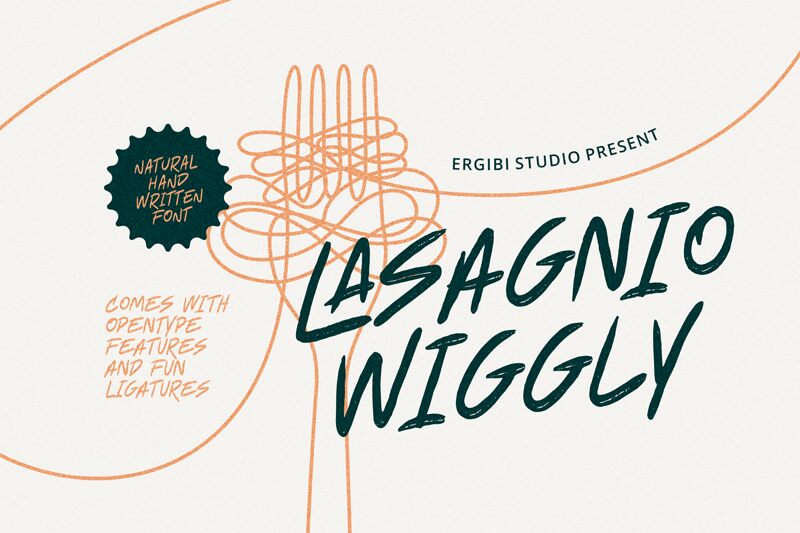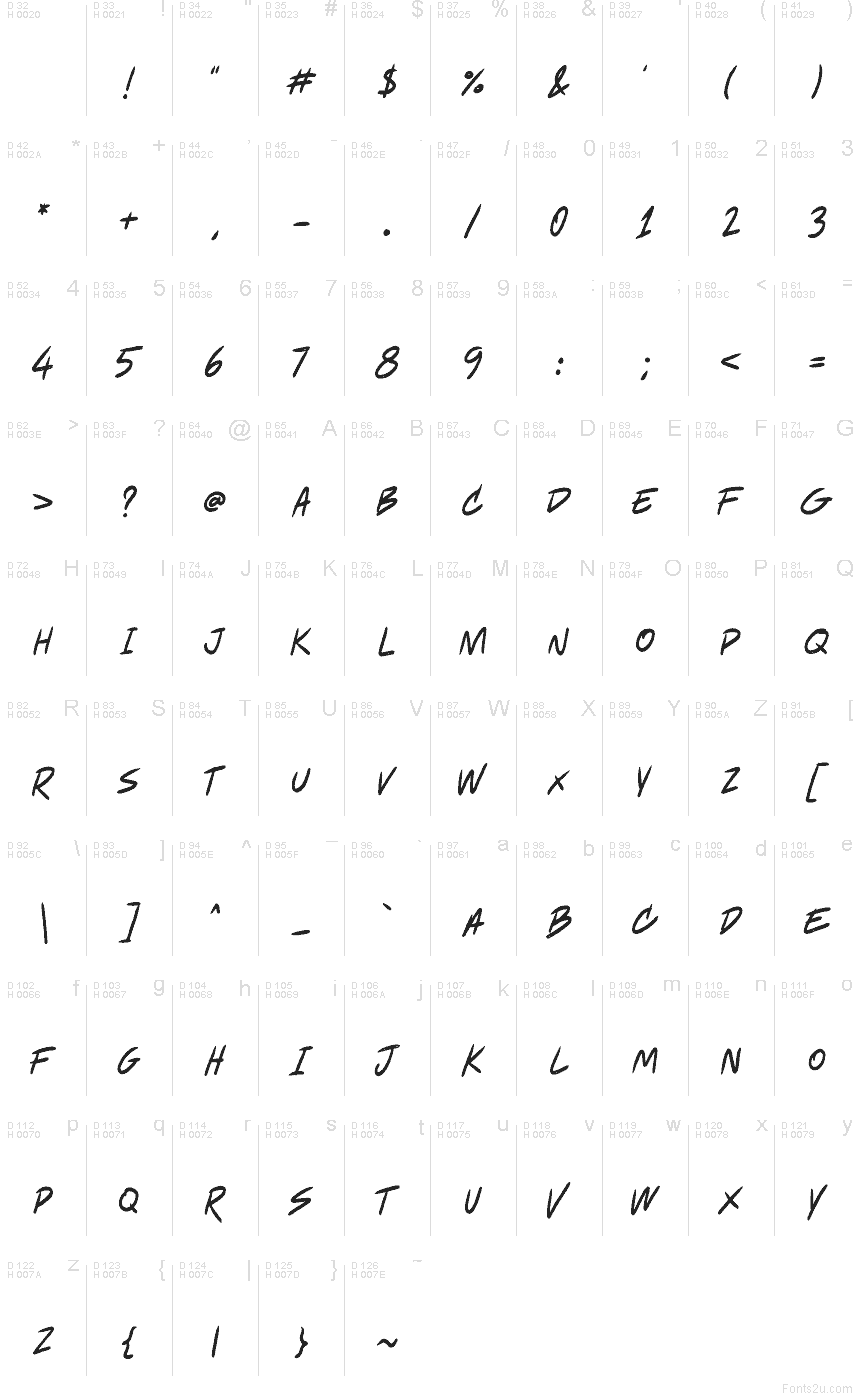
Lasagnio Wiggly font by Riyadh Rahman is a free comic display typeface with a restless, hand-scrawled energy. Each letter has a loose, wavy stroke that feels like it was dashed out with a slightly frayed marker, giving words a jittery, almost animated motion. The tight spacing and slanted forms pull the eye along, making headlines feel loud, casual, and a little chaotic-in the best way.
Using Lasagnio Wiggly, you can inject character into posters, snack packaging, zines, game titles, YouTube thumbnails, T-shirt graphics, and kids’ event flyers. This free font shines at larger sizes where its wobbly lines and inky edges can really show off. Pair it with a clean, neutral sans serif for body text to keep layouts readable while letting Lasagnio Wiggly handle the attitude.